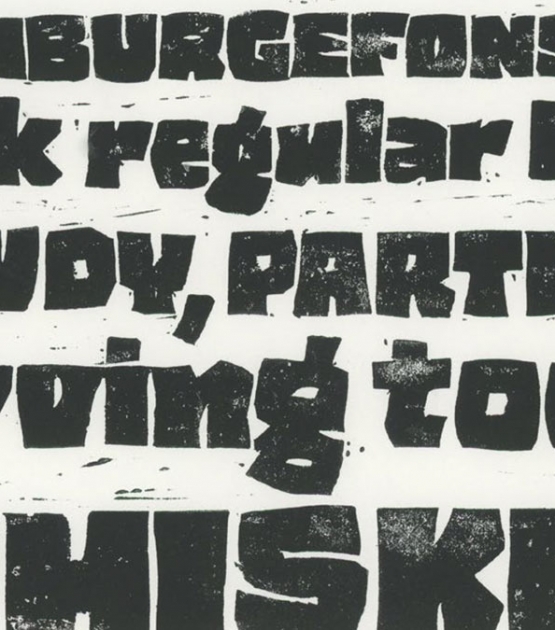
Rezak Armenian
Designed by Anya Danilova. Released 2026.
Rezak Armenian is a tactile, tangible type family that draws on traditions of stonecutting and linoleum printmaking. Rezak’s boldest styles have the fewest cuts, but as the weights become lighter, the number of cuts increases. The impression it leaves is sometimes naïve, sometimes emotional, but always invigorating.
• 2020 Gerard Unger Scholarship winner
• TDC Certificate of Typographic Excellence
• Silver at ED-awards 2023
• Finalist at Hiiiibrand awards, 2023
• Wood Pencil, Type Design & Lettering category, at D&AD awards, 2023
• ISTD Certificate of Typographic Excellence, 2024
The Backstory
Rezak Armenian
An angular, rough-hewn type family sensitively adapted to Armenian
Nothing is hidden in the simplistic forms and overt aesthetic of Anya Danilova’s Rezak font family. Rezak is not a type family directly from the digital world, but was inspired by the stout presence of cutting letters out of tangible material: paper, stone, and wood. With only a few cuts, the shapes remain dark and simple. With more cuts, the shapes become lighter and more defined, resulting in a dynamic type family not stuck within one specific category.
The Black and medium weights began as one approach before separating into display and text categories. The four text weights were created through pendulum swings in design direction that experimented with contrast, angles, tangent redirections, and the amount of anomalies allowed. The tech-heavy Incised display style came last, employing a surprising range of trigonometric functions to make it behave exactly as desired. Its look can result in something distinctive and emotional or completely over-the-top.
Most normal typefaces change only in thickness; Rezak changes in intention, highlighting the relationship between dark and light, presence and absence, what’s removed and what remains. Rezak’s Black and Incised display styles are perfect in situations of impact: websites, headlines and large text, gaming, call-outs, posters, and packaging. Try these two in logotypes, complex print layering, branding, and words-as-pattern for greater experimentation.
The text styles are bold, energetic, well informed, and round out the family with four weights (Regular, Medium, Bold, Extrabold) and matching italics for a family grand total of ten. These jaunty styles work well in children’s books, call-outs, movie titles, and subheads for myriad subjects such as architecture, coffee, nature, cooking, and other rough-and-tumble purposes.
Rezak was conceived and released with Latin and Cyrillic scripts side by side. To wit, the word ‘rezak’ (резак) means ‘cutter’ in Russian and several other Slavic languages. Rezak Cyrillic takes its multilinguality one step further, including support for underrepresented languages such as Abkhaz, Itelmen, and Koryak.
Rezak Armenian is a respectful interpretation into the Armenian script, made in close consultation with Yerevan-based type designer Gor Jihanian. Its design hews closely to the logic and tradition of Armenian letterforms while maintaining Danilova’s original vision. Rezak Armenian stands up well side-by-side with its Latin, Cyrillic, and Georgian variants.
Rezak Georgian accomplishes a rare feat – a digital typeface that truly gives the impression of hand-cut tangibility. Its respectful interpretation into Georgian – in close consultation with the Tbilisi-based type designer Ana Sanikidze – honours the alphabet and its letterforms while still maintaining the original design approach that makes Rezak such a compelling typeface.
Together, Rezak’s multiscript support provides designers with a wide variety of weights and scripts, and its deftly tactile nature will be appreciated in a wide variety of contexts.